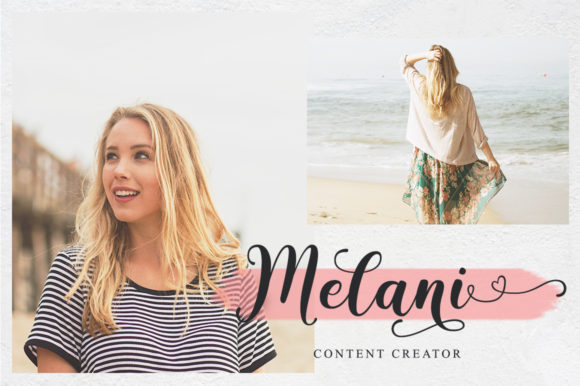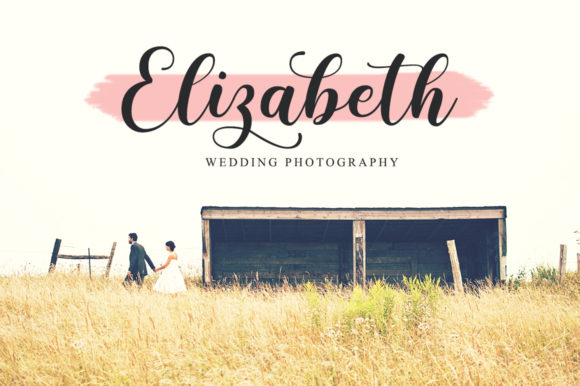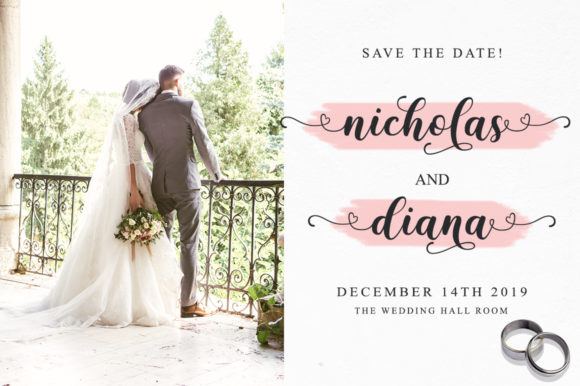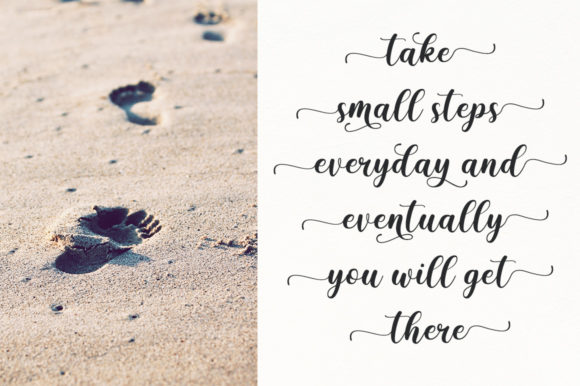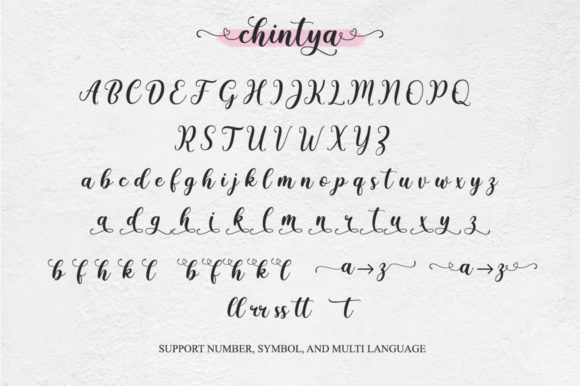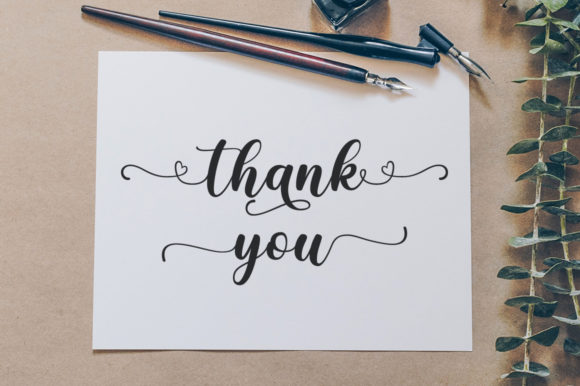
Introducing Chintya Font: Elevate Your Designs with Elegance and Modernity
In the world of typography, few fonts manage to strike a balance between elegance and modernity. Chintya Font is one such exceptional calligraphy font that has been making waves in the design community. With its beautiful, flowing script and versatile usability, Chintya is an excellent choice for designers and crafters looking to add a touch of sophistication to their projects.
What Makes Chintya Font Stand Out?
Chintya Font boasts an elegant and modern feel, making it perfect for a wide range of applications. Its calligraphy style is not only visually appealing but also highly legible, ensuring that your message is conveyed with clarity and style. Whether you’re working on logos, branding materials, invitations, stationery, wedding designs, or social media posts, Chintya Font is sure to elevate your designs to the next level.
Key Features of Chintya Font
- Elegant and Modern Design: Chintya Font’s unique blend of traditional calligraphy and modern typography makes it a standout choice for designers.
- Versatile: Use Chintya Font for various projects, including logos, branding, invitations, stationery, wedding designs, social media posts, and more.
- Highly Legible: Despite its elegant and cursive nature, Chintya Font maintains high legibility, making it suitable for both digital and print media.
Uses of Chintya Font
The versatility of Chintya Font makes it an invaluable asset for designers and crafters. Here are some of the many ways you can use Chintya Font:
- Logos and Branding: Create memorable and stylish logos and branding materials that stand out.
- Invitations and Stationery: Add a touch of elegance to your invitations, greeting cards, and stationery.
- Wedding Designs: Make your wedding designs, including wedding invitations and decor, truly special with Chintya Font.
- Social Media Posts: Elevate your social media presence with stylish and engaging posts.
- Packaging and Product Design: Use Chintya Font for product packaging and design to give your products a premium look.
Tips for Using Chintya Font Effectively
To make the most of Chintya Font, consider the following tips:
- Pair with Complementary Fonts: Combine Chintya Font with simple, sans-serif fonts for a balanced and harmonious look.
- Adjust Size and Color: Experiment with different sizes and colors to emphasize certain words or phrases.
- Use in Combination with Images: Pair Chintya Font with relevant images or illustrations to enhance visual appeal.
- Keep it Simple: Avoid overcrowding your design; let Chintya Font’s elegance shine through with a clean and minimalist approach.
Chintya Font is a beautiful and versatile calligraphy font that can add a touch of elegance and modernity to your designs. Whether you’re a professional designer or a crafter, Chintya Font is an excellent choice for a wide range of projects. With its highly legible and stylish design, Chintya Font is sure to elevate your designs and make them stand out.